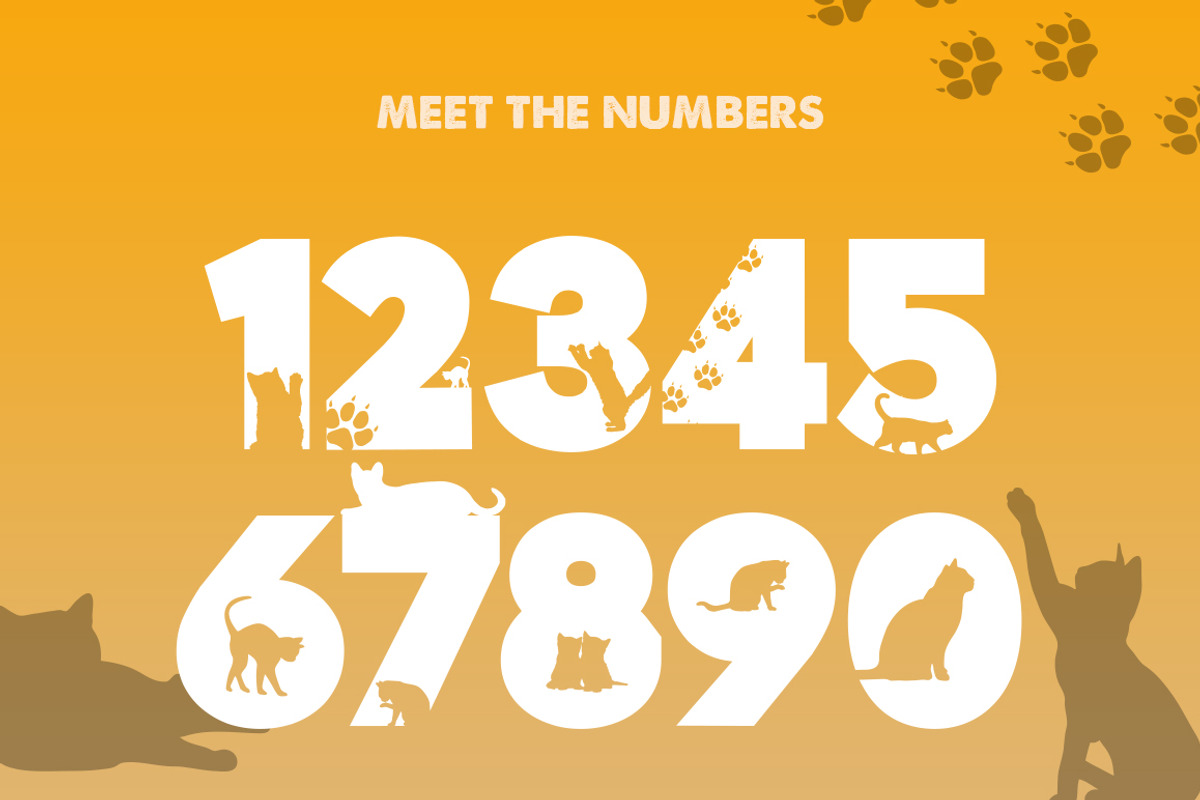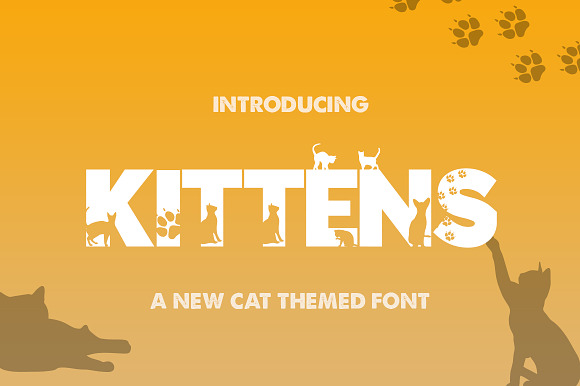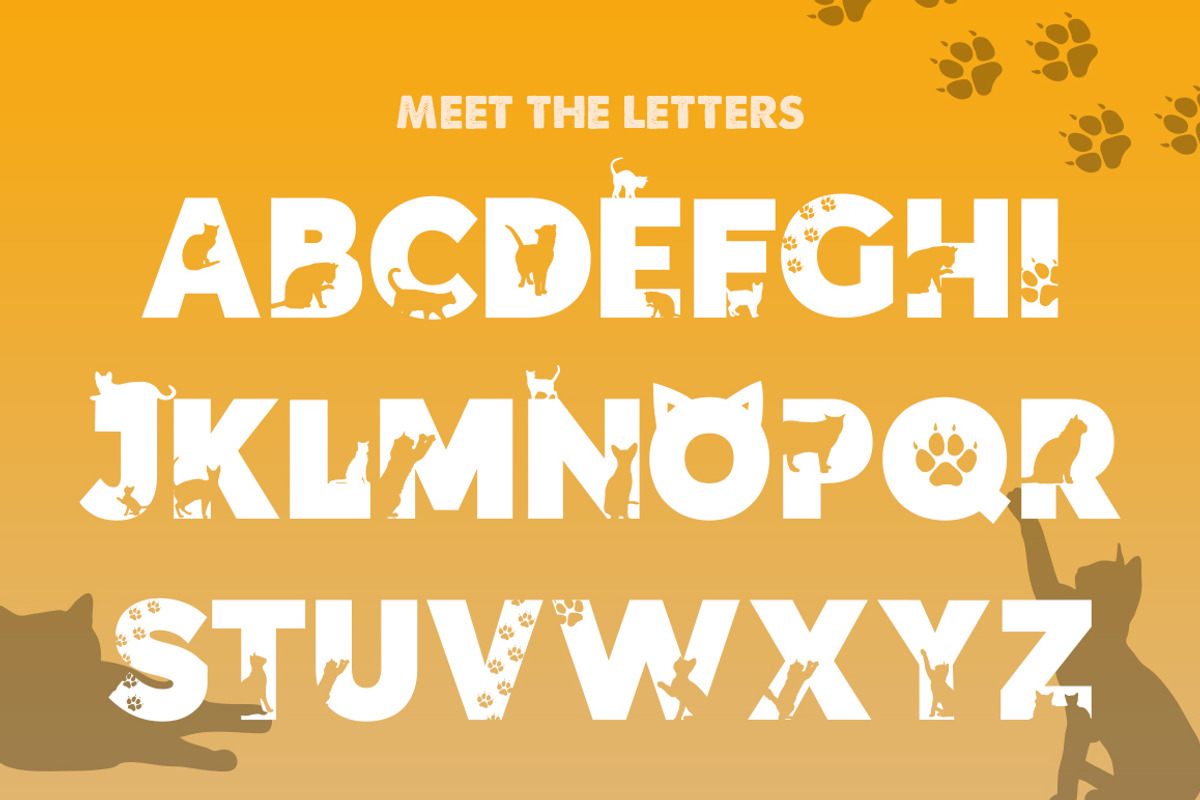
Kittens Silhouette Font
Why Kittens Silhouette Font is worth a look
Kittens Silhouette Font by Salt & Pepper Designs fits naturally into Branding, posters, packaging, typography.